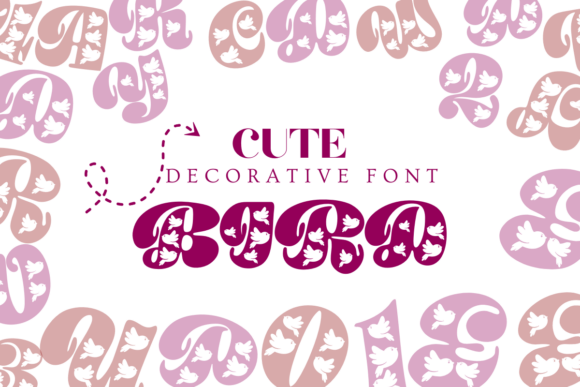
Cute Bird Font: A Delightful Addition to Your Creative Projects
Are you looking for a font that can add a touch of whimsy and charm to your creative projects? Look no further than the Cute Bird Font! This decorative font is perfect for taking notes, writing a diary, or making greeting cards. However, its versatility doesn’t stop there. You can use it for a wide range of designs, including banners, content, mugs, cards, shirts, stationery, social media posts, and more!
What is Cute Bird Font?
Cute Bird Font is a decorative font that features adorable bird designs. Its unique and playful style makes it perfect for adding a personal touch to your creative projects. The font is designed to be easy to read and use, making it accessible to crafters and designers of all skill levels.
Uses for Cute Bird Font
Cute Bird Font is a versatile font that can be used for a wide range of creative projects. Here are some ideas to get you started:
- Journaling and Diary Writing: Add a touch of personality to your journal or diary with Cute Bird Font. Use it to write headings, highlight important entries, or create decorative borders.
- Greeting Cards: Create one-of-a-kind greeting cards for special occasions like birthdays, holidays, or weddings. The Cute Bird Font is sure to make your cards stand out.
- Banners and Signs: Use Cute Bird Font to create eye-catching banners and signs for parties, events, or promotions.
- Social Media Posts: Add a playful touch to your social media posts with Cute Bird Font. Use it to create engaging headlines, captions, or quotes.
- Merchandise: Create custom merchandise like mugs, shirts, or tote bags with Cute Bird Font. It’s a great way to add a personal touch to your products.
- Stationery: Use Cute Bird Font to create custom stationery, including notebooks, journals, or letterheads.
Benefits of Using Cute Bird Font
There are many benefits to using Cute Bird Font in your creative projects. Here are a few:
- Unique and Playful Style: Cute Bird Font adds a touch of whimsy and charm to your projects, making them stand out from the crowd.
- Ease of Use: The font is designed to be easy to read and use, making it accessible to crafters and designers of all skill levels.
- Versatility: Cute Bird Font can be used for a wide range of creative projects, from journaling and greeting cards to banners and merchandise.
- Customization: Use Cute Bird Font to add a personal touch to your projects and make them truly unique.
Tips for Using Cute Bird Font
Here are some tips for getting the most out of Cute Bird Font:
- Experiment with Different Sizes and Colors: Play around with different sizes and colors to find the perfect combination for your project.
- Use it Sparingly: Use Cute Bird Font sparingly to add emphasis and create visual interest.
- Pair it with Other Fonts: Pair Cute Bird Font with other fonts to create a unique and visually appealing combination.
- Have Fun: Most importantly, have fun and be creative! Cute Bird Font is a versatile font that can be used in many different ways.
Cute Bird Font is a delightful addition to any creative project. Its unique and playful style makes it perfect for adding a personal touch to your journaling, greeting cards, banners, and more. With its ease of use, versatility, and customization options, Cute Bird Font is a great choice for crafters and designers of all skill levels. So why not give it a try and see what amazing creations you can come up with?